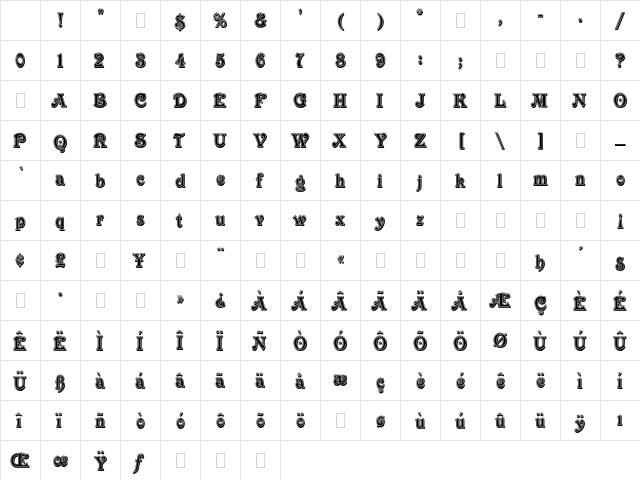
Complete Victorian Inline Shaded Plain glyph index. Displaying only characters natively supported by Victorian Inline Shaded Plain font.
Victorian Inline Shaded is built around its visual character rather than neutral utility - its distinctive forms are designed to make an impression at display sizes.
Font Pairing: Pair with a clean neutral sans-serif for body copy to let Victorian Inline Shaded's character lead without overwhelming the composition.
Pro Tip: Use Victorian Inline Shaded exclusively at display sizes - it was designed to be seen, not read at length. Let a neutral companion handle body copy.